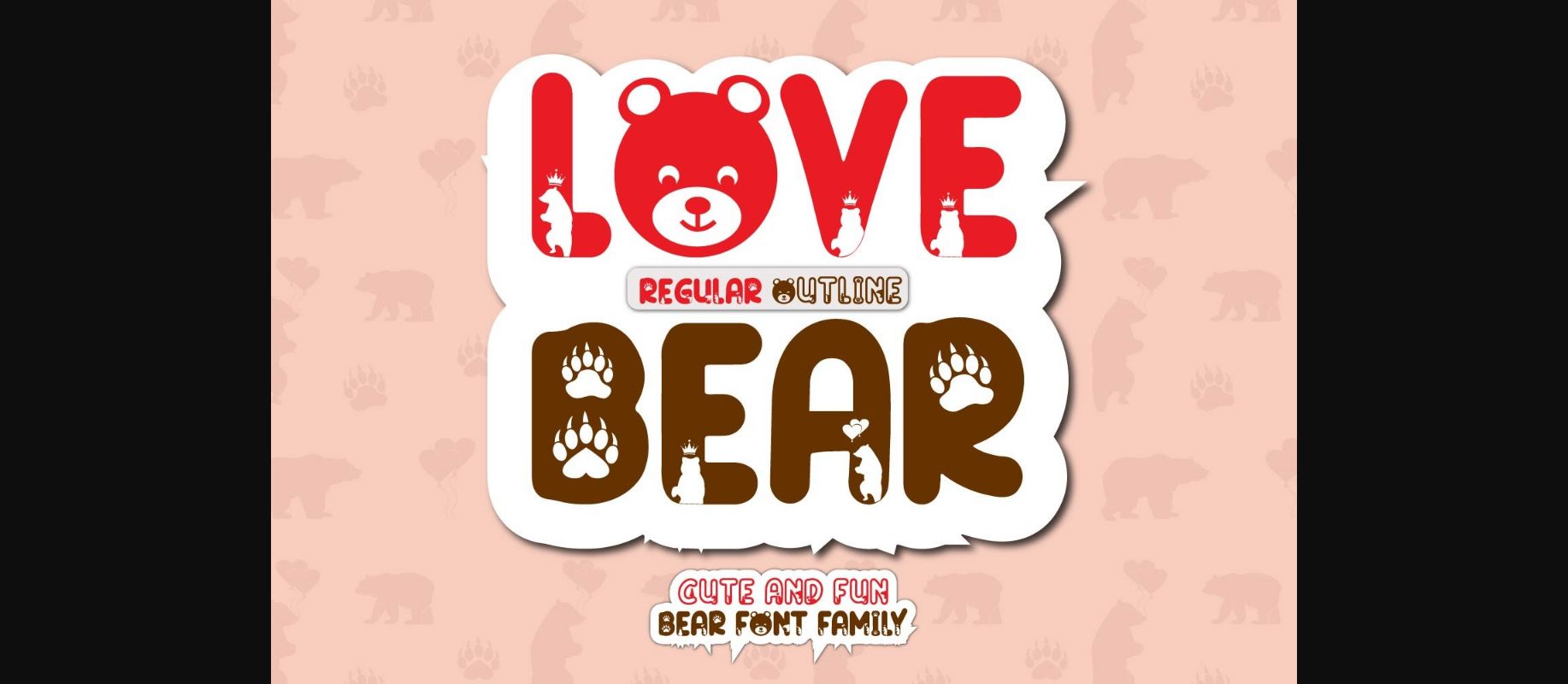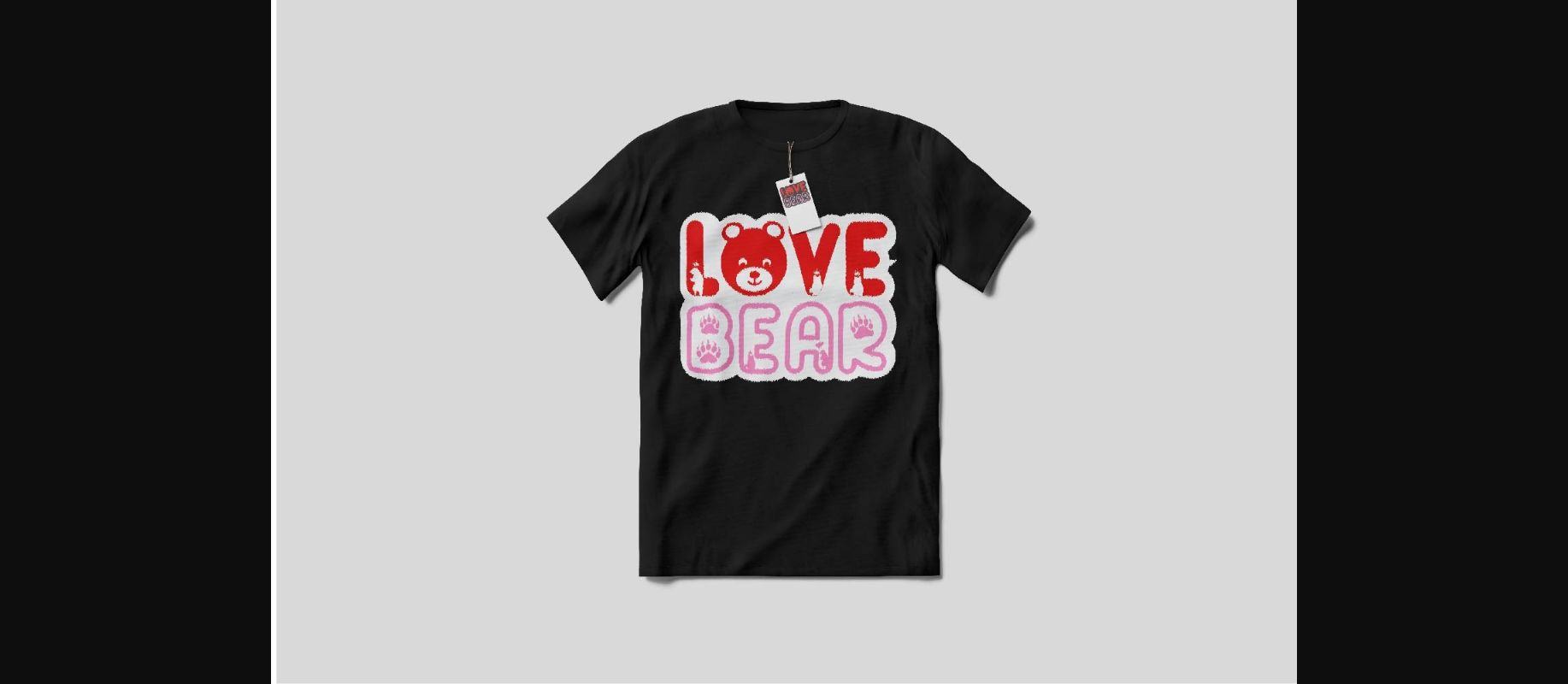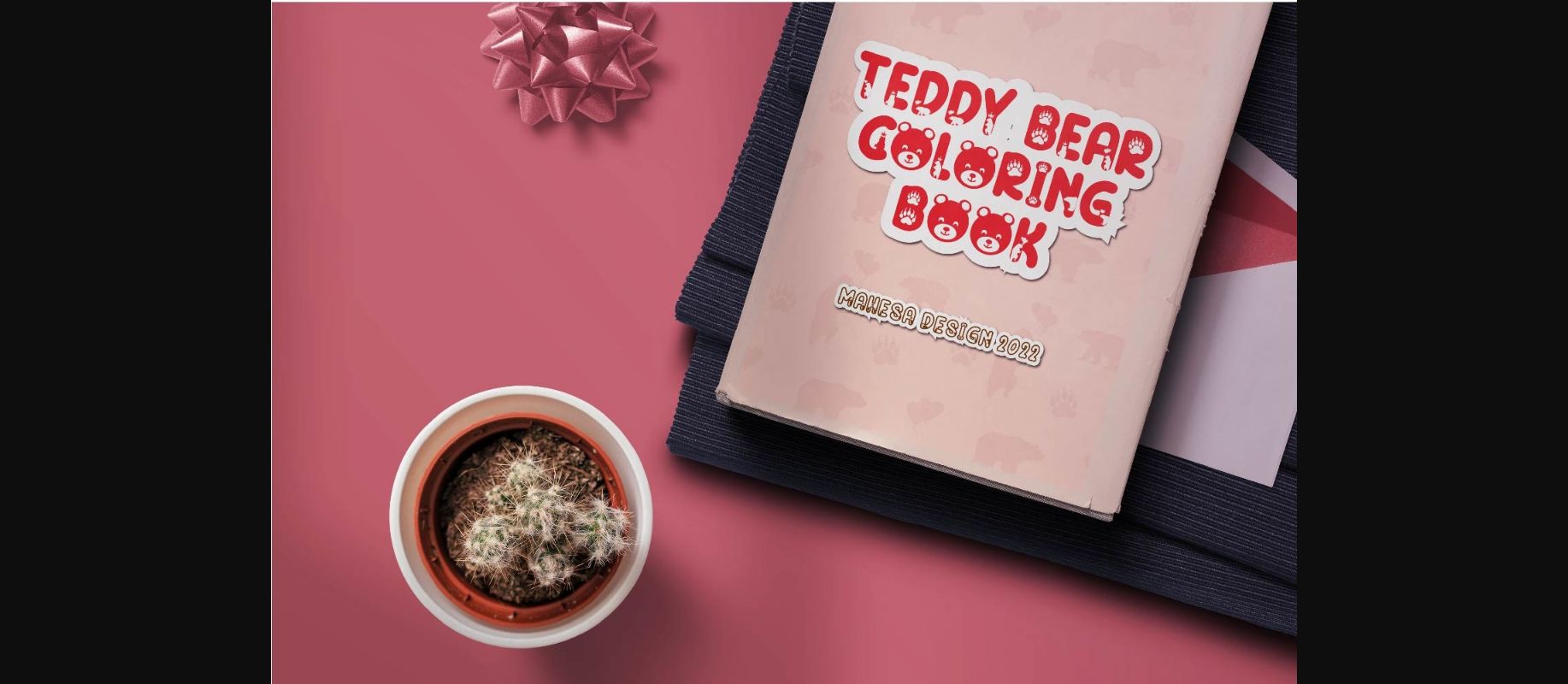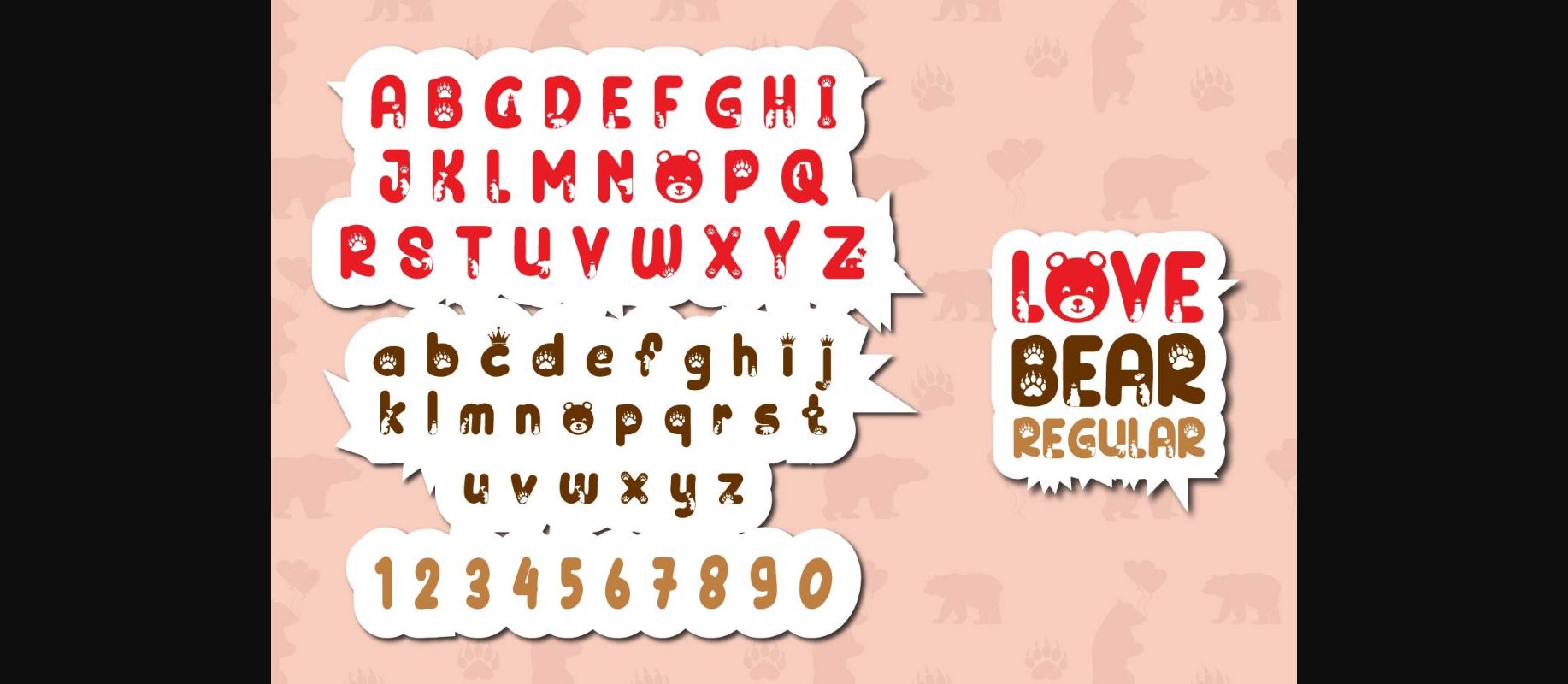
Love Bear Font
About Love Bear Font
Love Bear is a cute and adorable decorative font. It embodies fun and authenticity and is a perfect choice for kids activities, crafts or t-shirt designs.